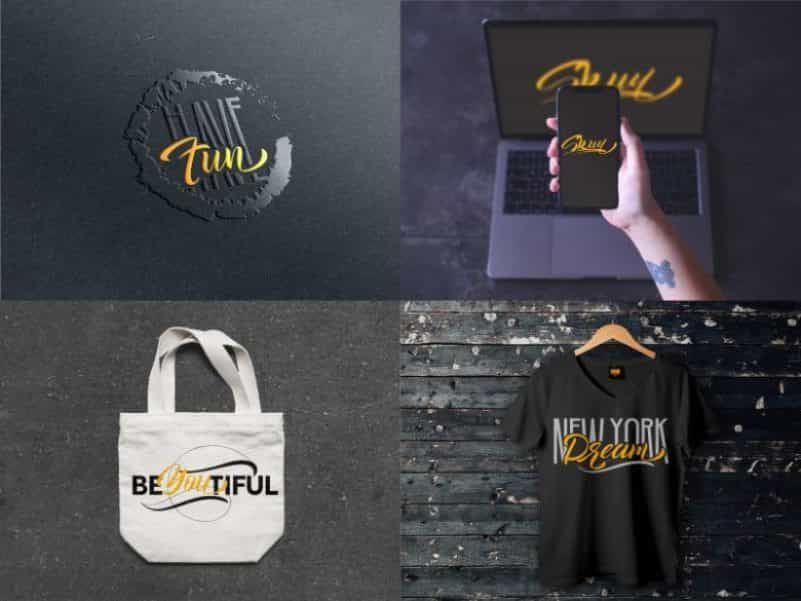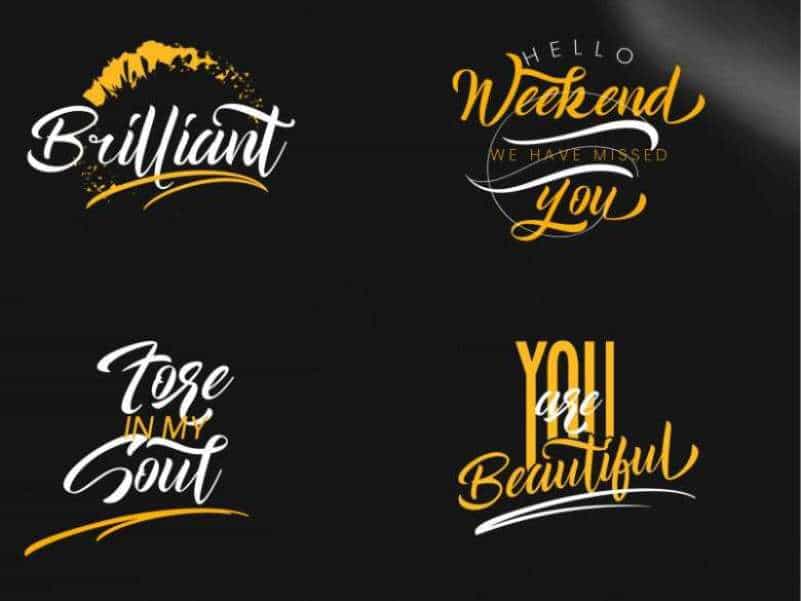
Discover Good Morning Font, part of the Commercial Brush Handwritten collection—a versatile and unique font perfect for adding a personal touch to your projects. Download it for free and enjoy crafting designs with style, from invitations to social media posts. This font is available exclusively for personal use, giving you the freedom to create without limits. Unlock your creativity with Good Morning Font today!
This is the Good Morning Font which is a delightful and cute script font that will definitely add a nice touch to your next project!